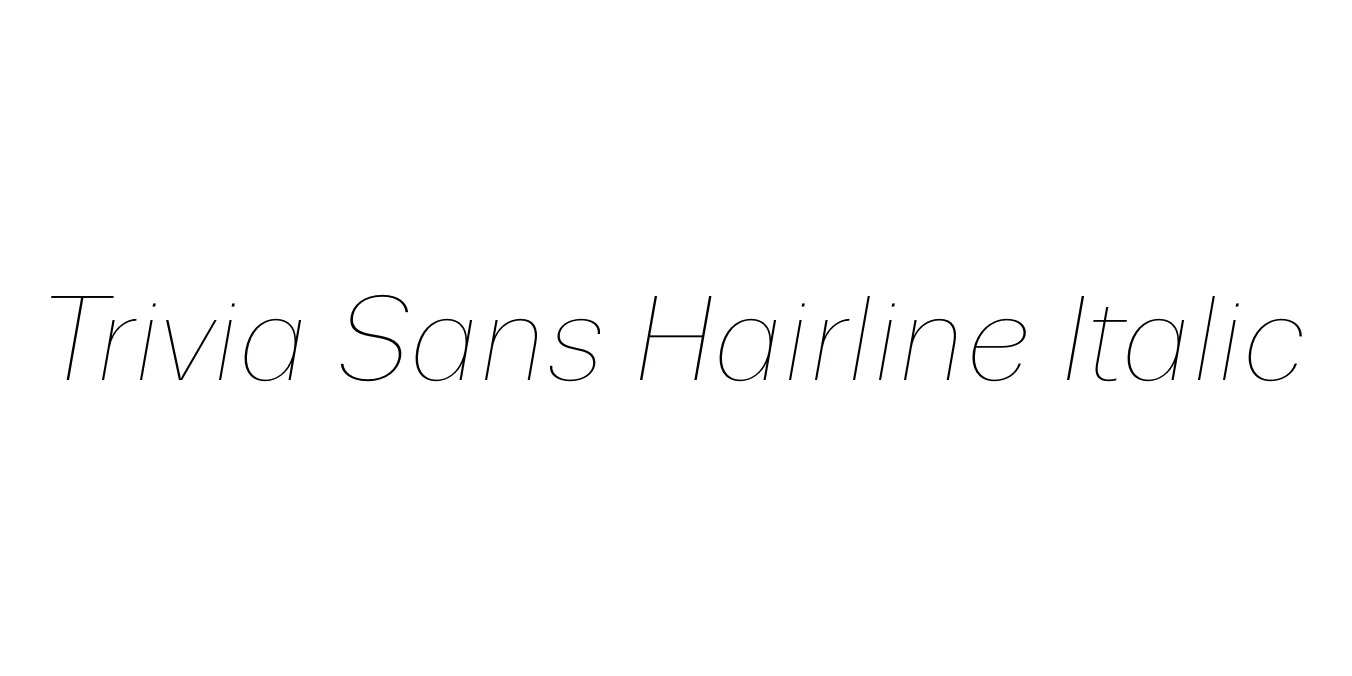
Trivia Sans Hairline Italic
Designed by František Štorm
Trivia Sans Hairline Italic is a distinguished member of the Trivia superfamily, meticulously crafted by the renowned type designer František Štorm. This specific weight represents the absolute minimum of stroke thickness, offering a sophisticated and ethereal aesthetic that is perfect for ultra-high-definition displays and luxury print media. The design philosophy behind the Trivia collection is to provide a versatile, contemporary toolset that bridges the gap between classic proportions and modern functionalism.
As an italic variant, this typeface introduces a graceful slant that enhances the dynamic flow of minimalist layouts without sacrificing the structural integrity of its Sans Serif roots. The Hairline Italic is particularly effective when used at large scales, where its delicate features can be fully appreciated. It remains a favorite among creative directors in the fashion and architectural industries for its ability to convey elegance and precision through subtle, thin lines.
Trivia Sans Hairline Italic Best Uses
Perfect for high-end fashion magazines and avant-garde layout headers.
Ideal for luxury brands looking for a sophisticated, minimalist identity.
Best used at large sizes to maintain visibility of the hairline strokes.
Excellent for artistic posters where typography acts as a central visual element.